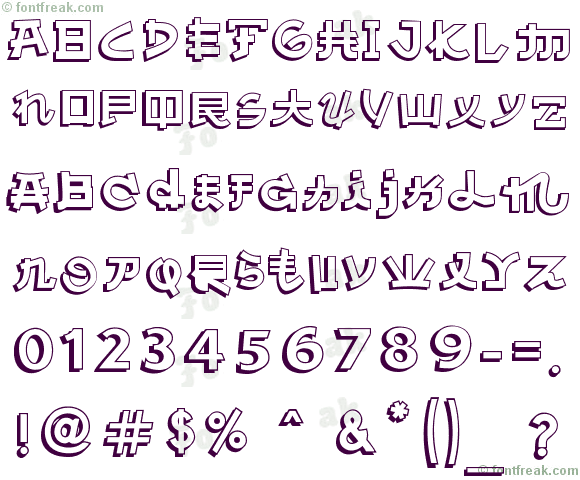
Almost Japanese Comic
The Almost Japanese Comic font by Galdino Otten Fonts is a playful display typeface that captures the whimsy of comic book aesthetics with a unique flair. Released in 2015, this font serves as a perfect fusion of cartoonish charm and cultural nuances, making it an excellent choice for a variety of creative projects. As a freeware typeface, it allows users to explore its delightful characteristics without any cost.
Visually, the Almost Japanese Comic font features a distinctively irregular stroke weight that adds a dynamic quality, while the rounded edges and exaggerated forms contribute to its comic style. The spacing is thoughtfully designed to enhance readability, even at smaller sizes, making it suitable for a range of applications. The font also incorporates subtle decorative elements, such as playful curves and unexpected angles, which further emphasize its comic book origins.
This versatile typeface is ideal for several specific use cases. Graphic designers may find it perfect for children's book covers, where a fun and approachable aesthetic is paramount. It also works wonderfully for movie posters aimed at younger audiences, adding a vibrant touch that captures attention. Additionally, Almost Japanese Comic can elevate restaurant menus, particularly for establishments specializing in Asian cuisine, where a culturally resonant font can enrich the dining experience. Content creators looking to engage their audience can also utilize this font in social media graphics and promotional materials.